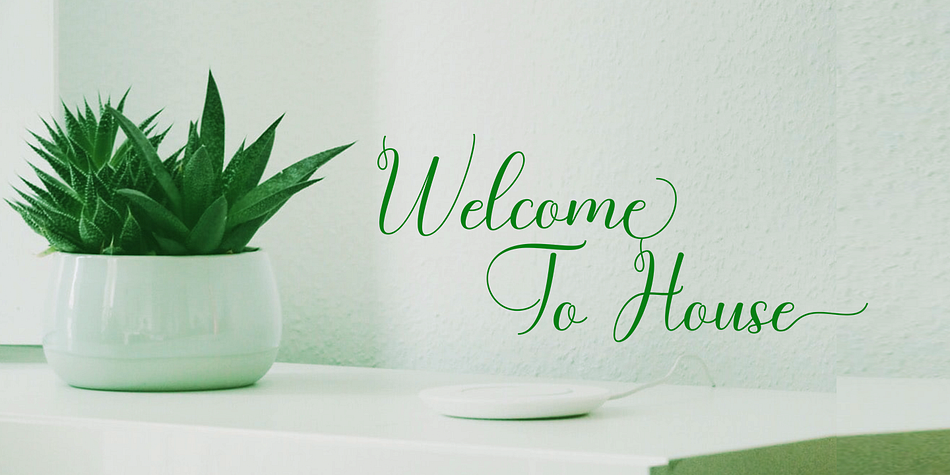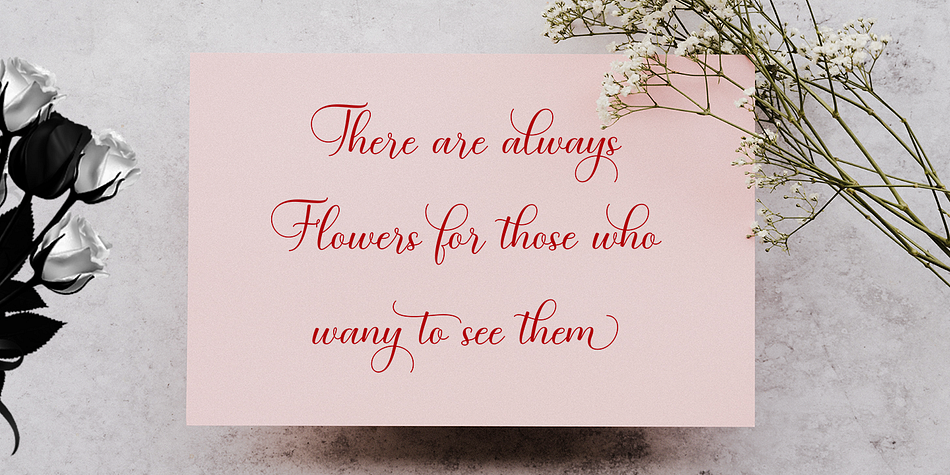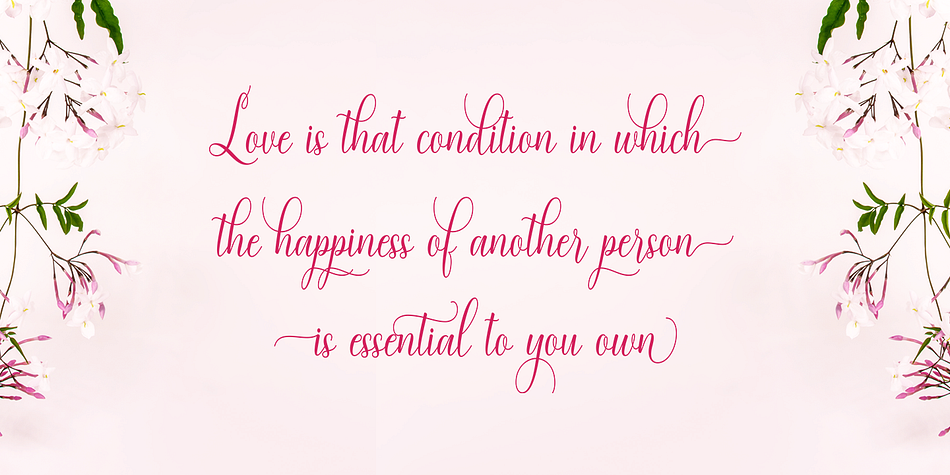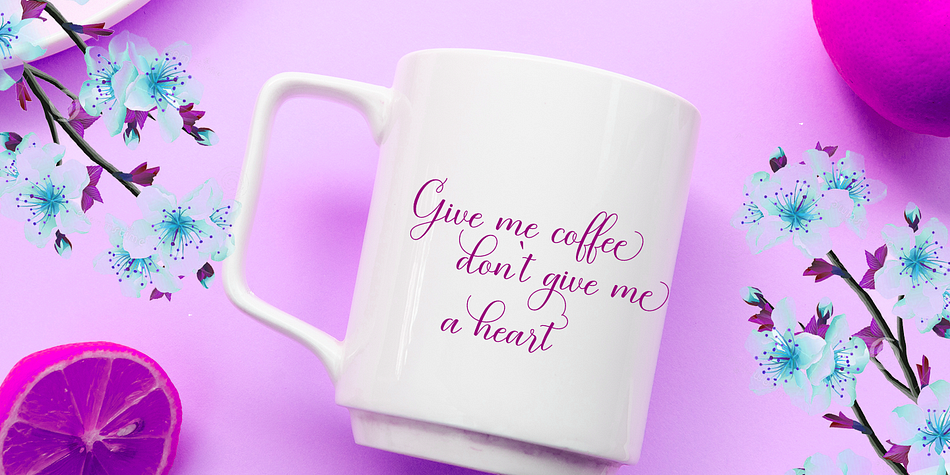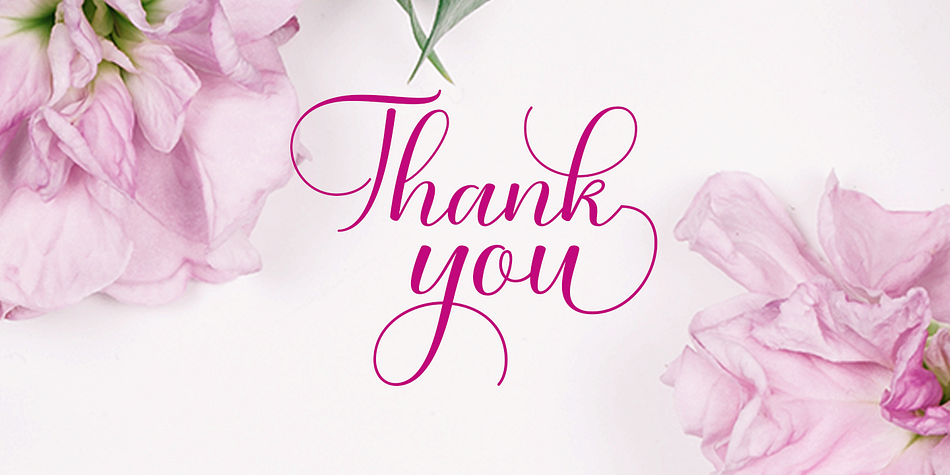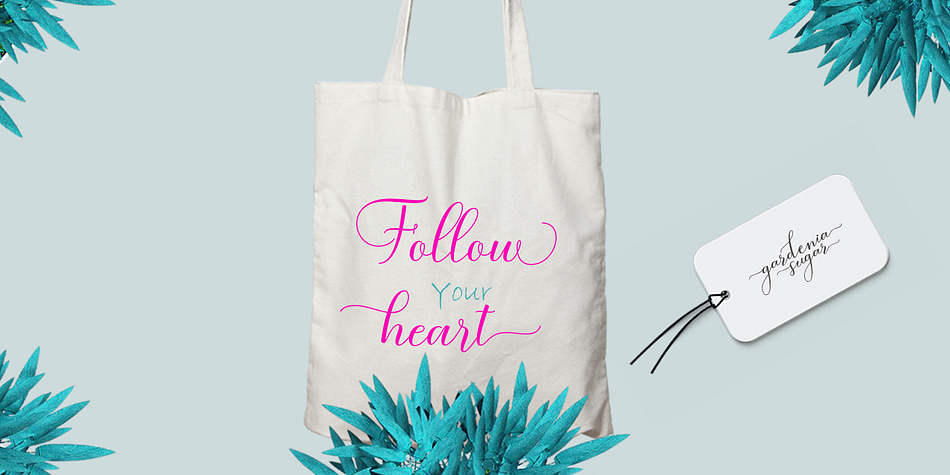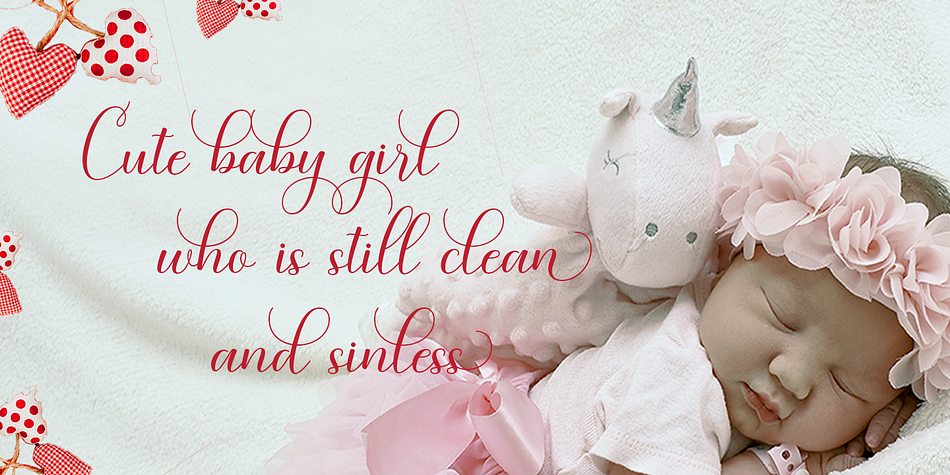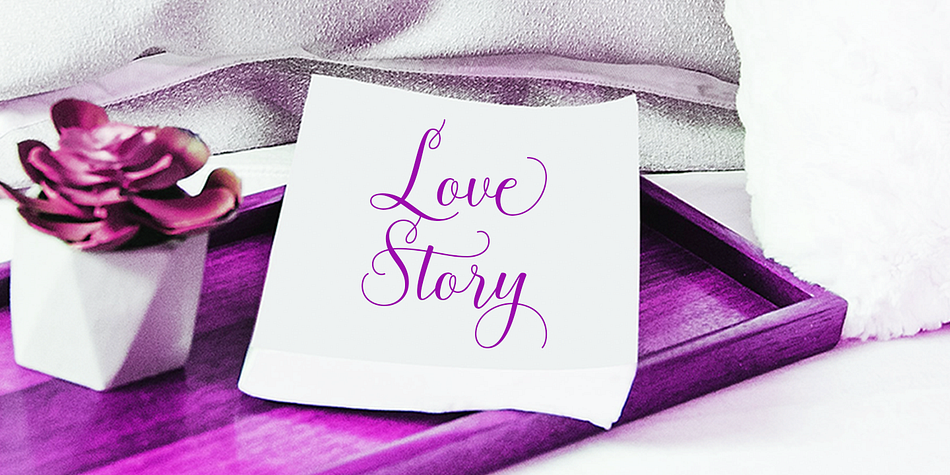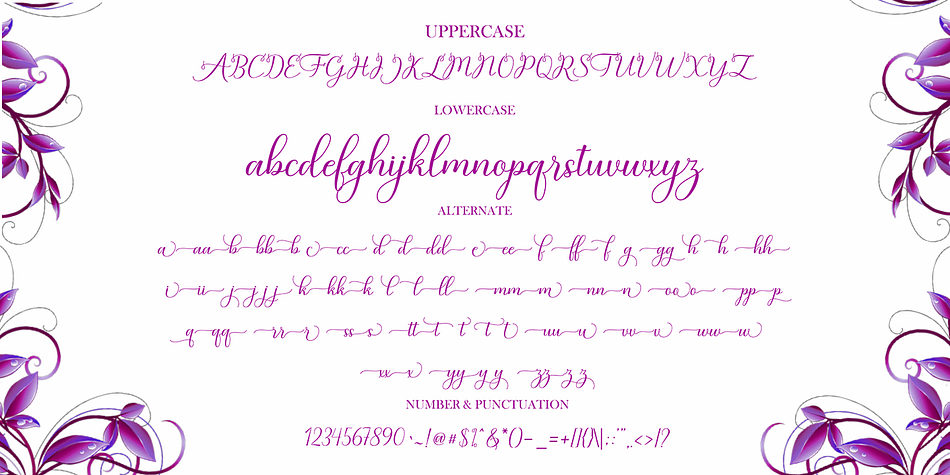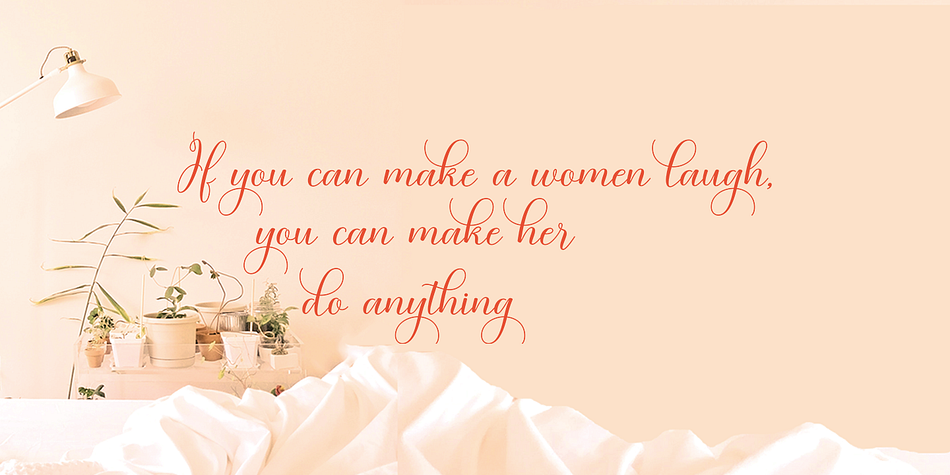
Baby Angelonia
Baby Angelonia is a modern calligraphy font family published by Gatype.
Baby Angelonia is a modern, handwritten, modern calligraphy font. The shape is modern and unique and the writing style is very natural. Baby Angelonia features a varied baseline, smooth lines, gorgeous glyphs, and stunning alternatives.
Hand-drawn design elements allow you to create many beautiful typographic designs in an instant like branding, web design and editorial, prints, crafts, quotes,
It’s great for logotypes, wedding invitations, romantic cards, labels, packaging, spelling of names and others. Add to your most creative ideas and watch how they bring them to life!